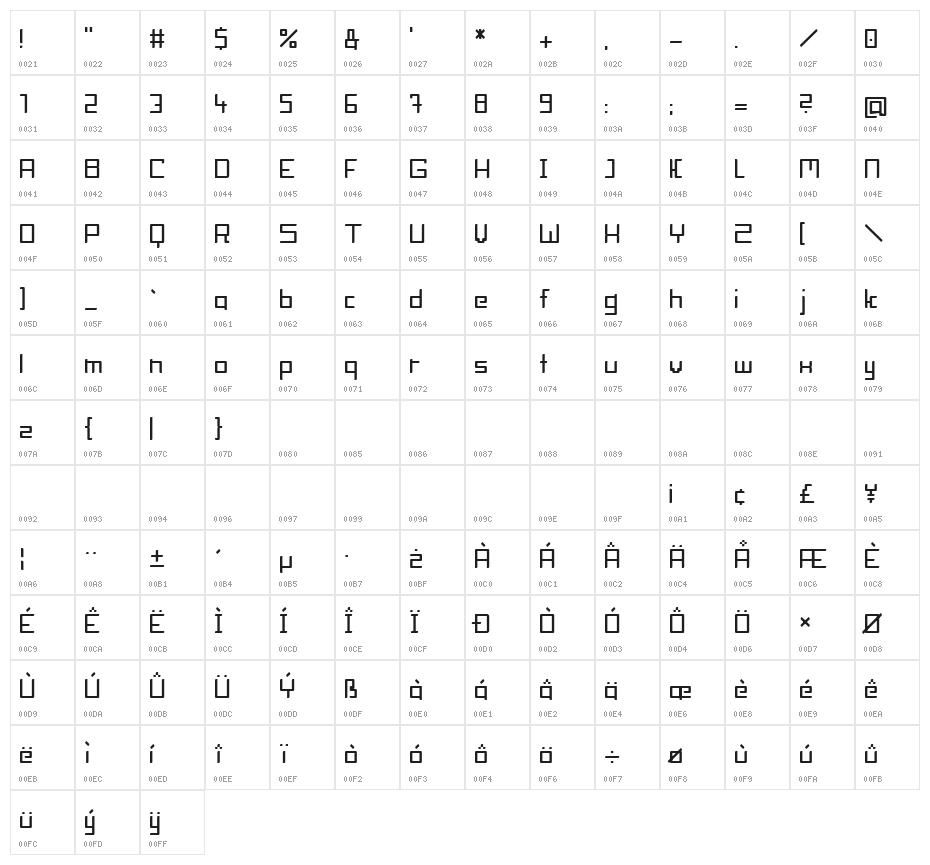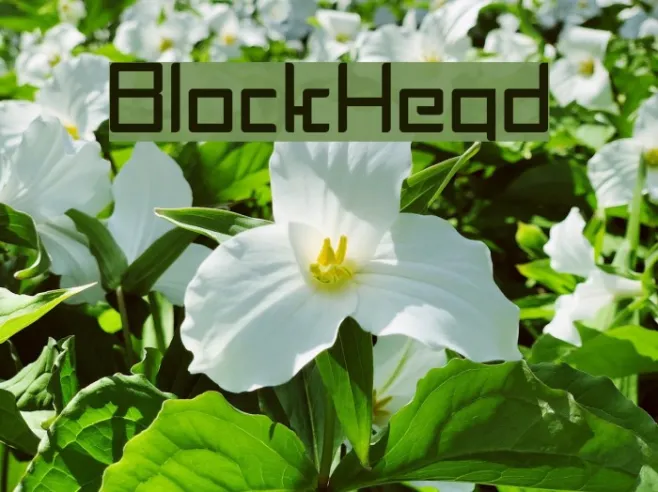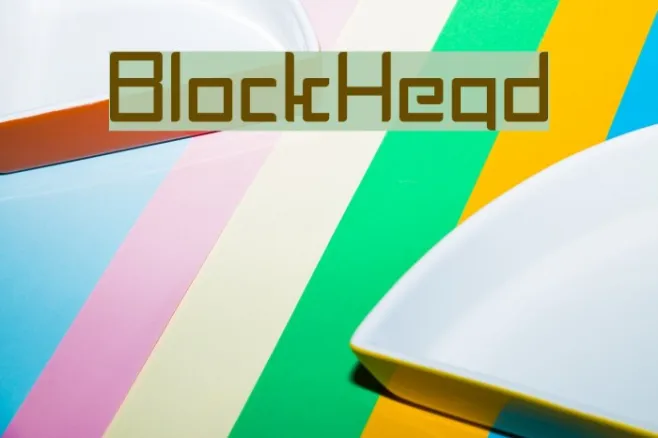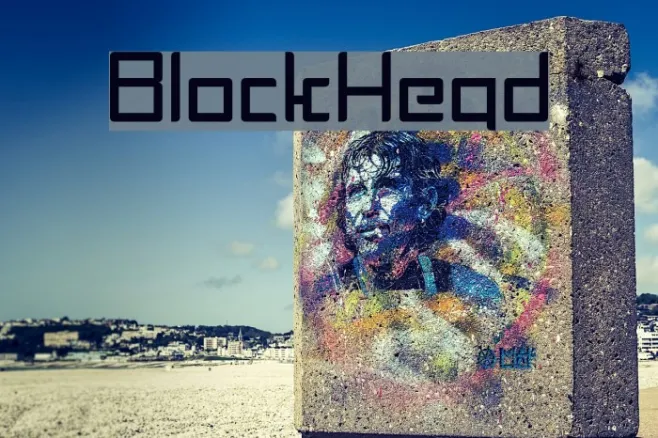
BlockHead Font
BlockHead Description
This font features a geometric and blocky design, characterized by its square-like shapes and consistent line thickness. The uppercase and lowercase letters maintain a uniform height, contributing to a cohesive and structured appearance. The numerals and special characters follow the same design principles, ensuring a harmonious look across all glyphs. The font's style is reminiscent of digital or retro aesthetics, making it suitable for projects that require a modern yet nostalgic feel. Its clean lines and lack of serifs give it a contemporary edge, while the uniformity in character design enhances readability.
| Proposed Projects | Ideal for digital interfaces, retro-themed designs, video game graphics, and tech-related branding. |